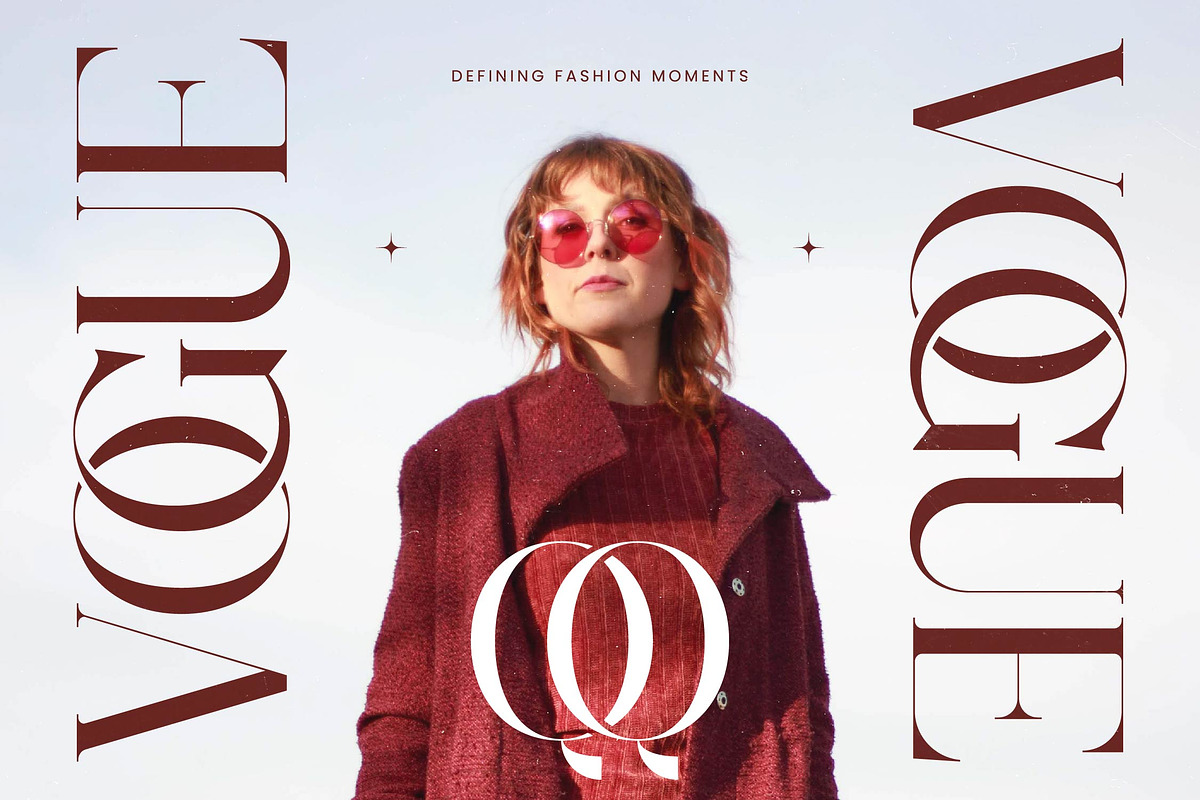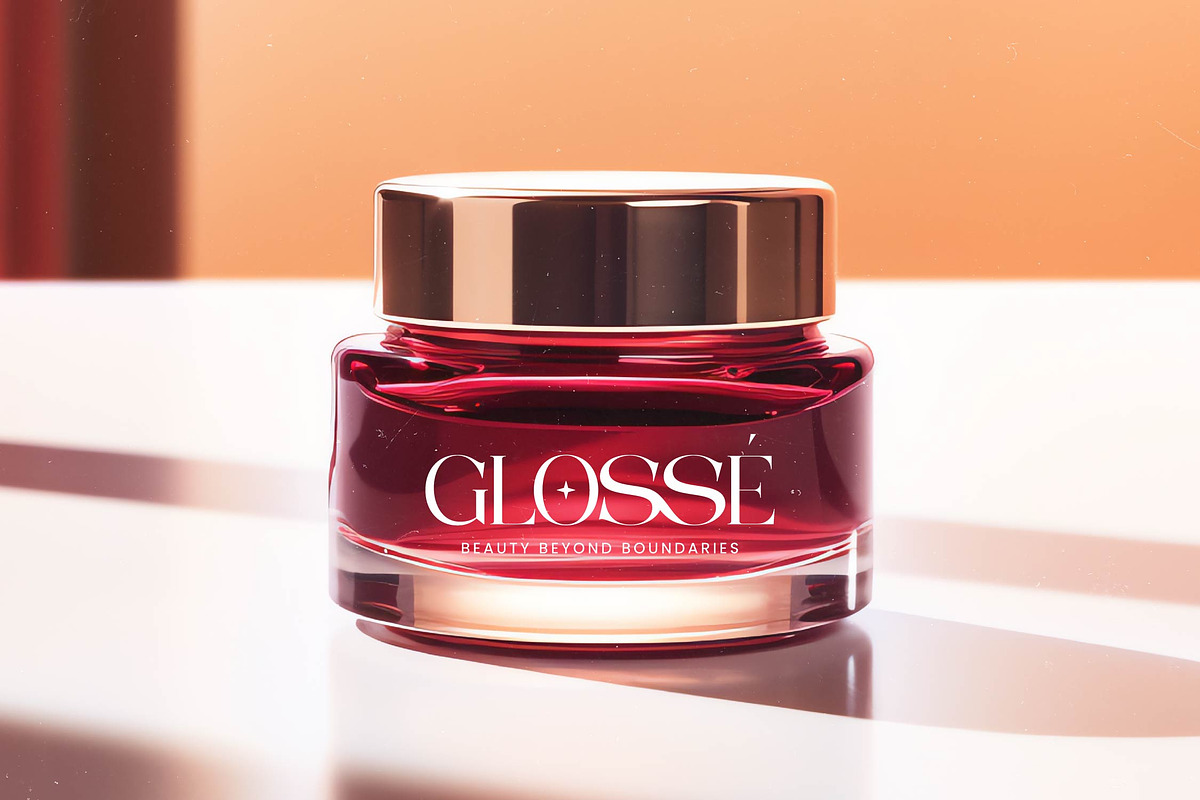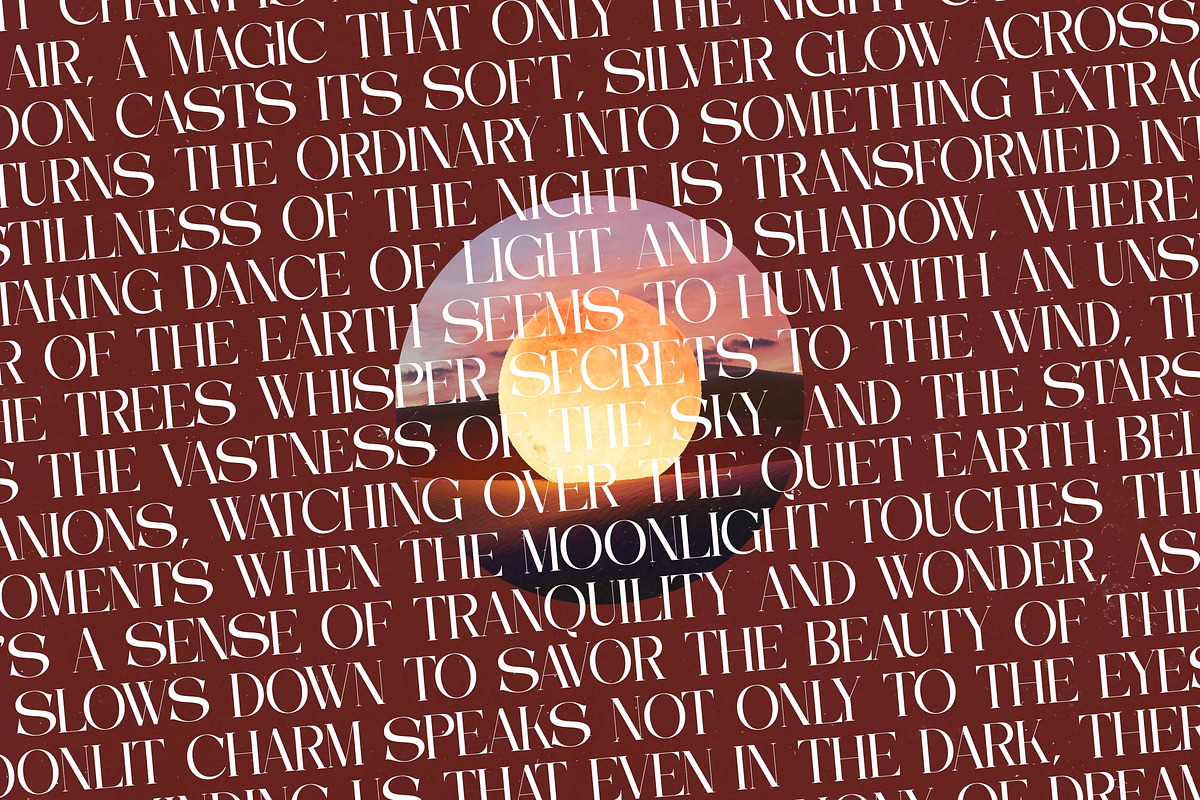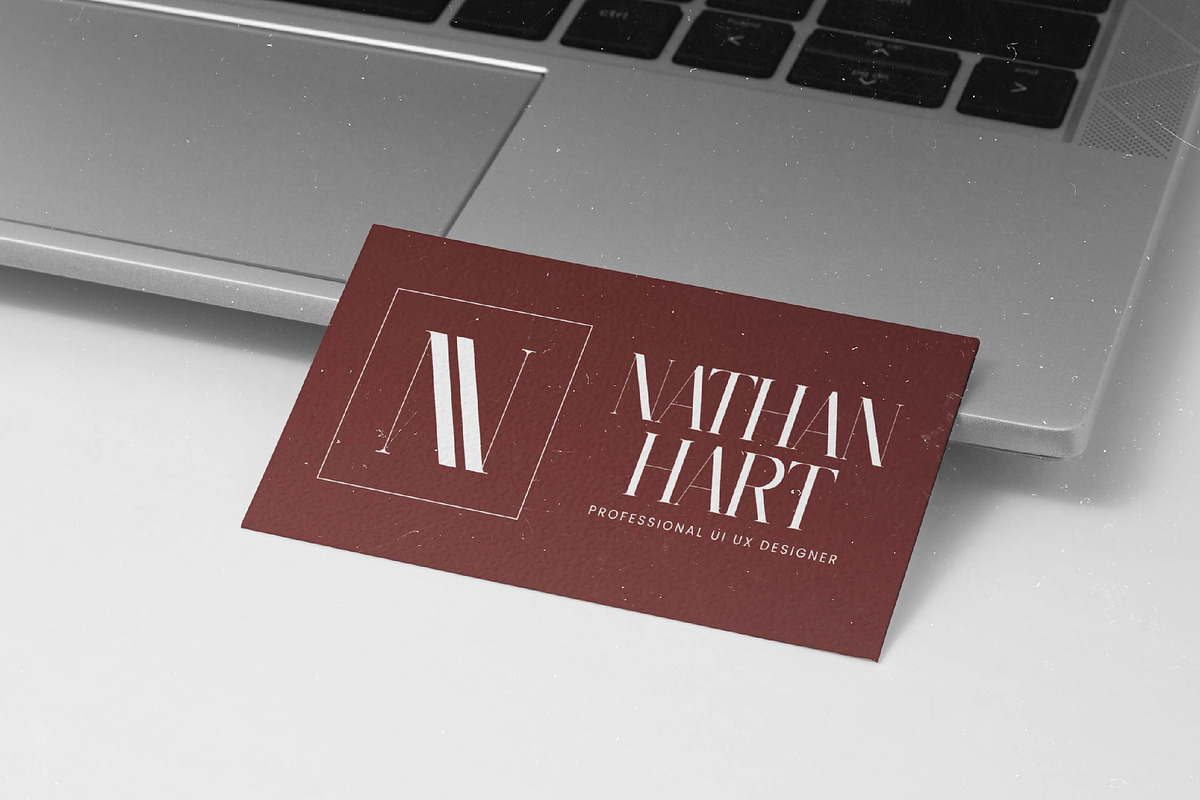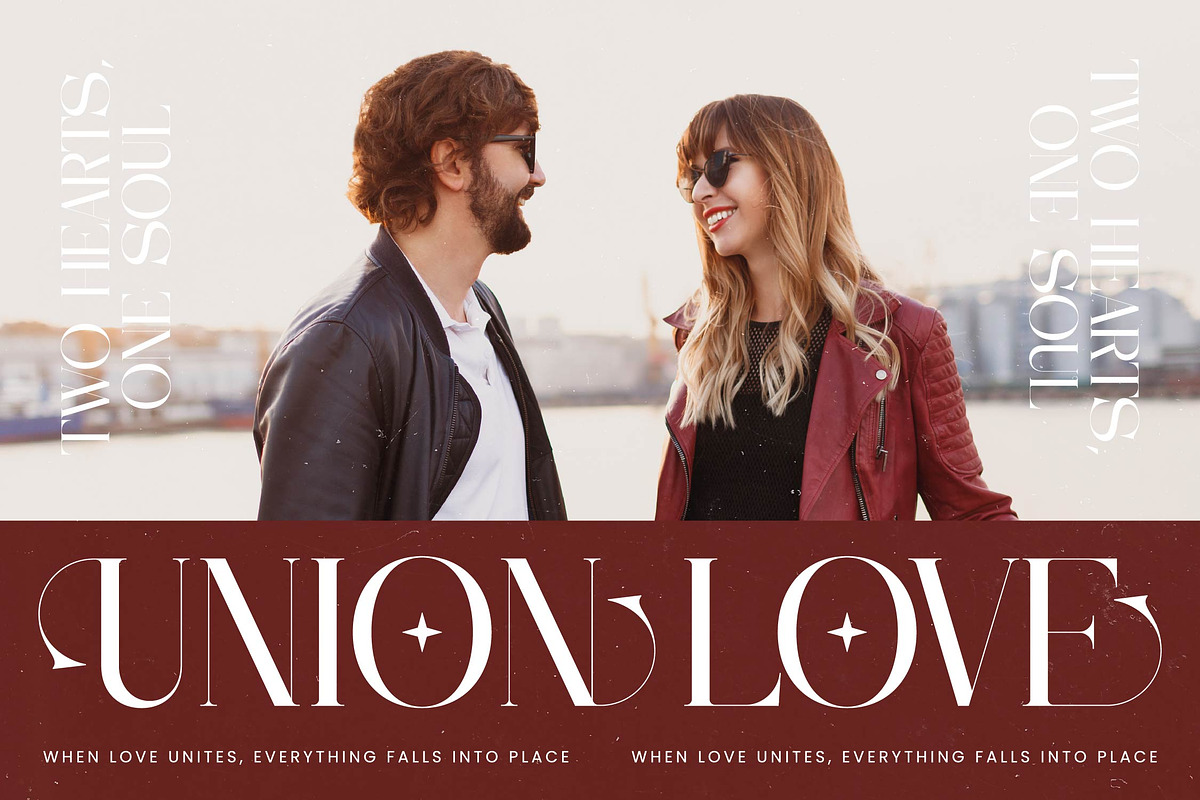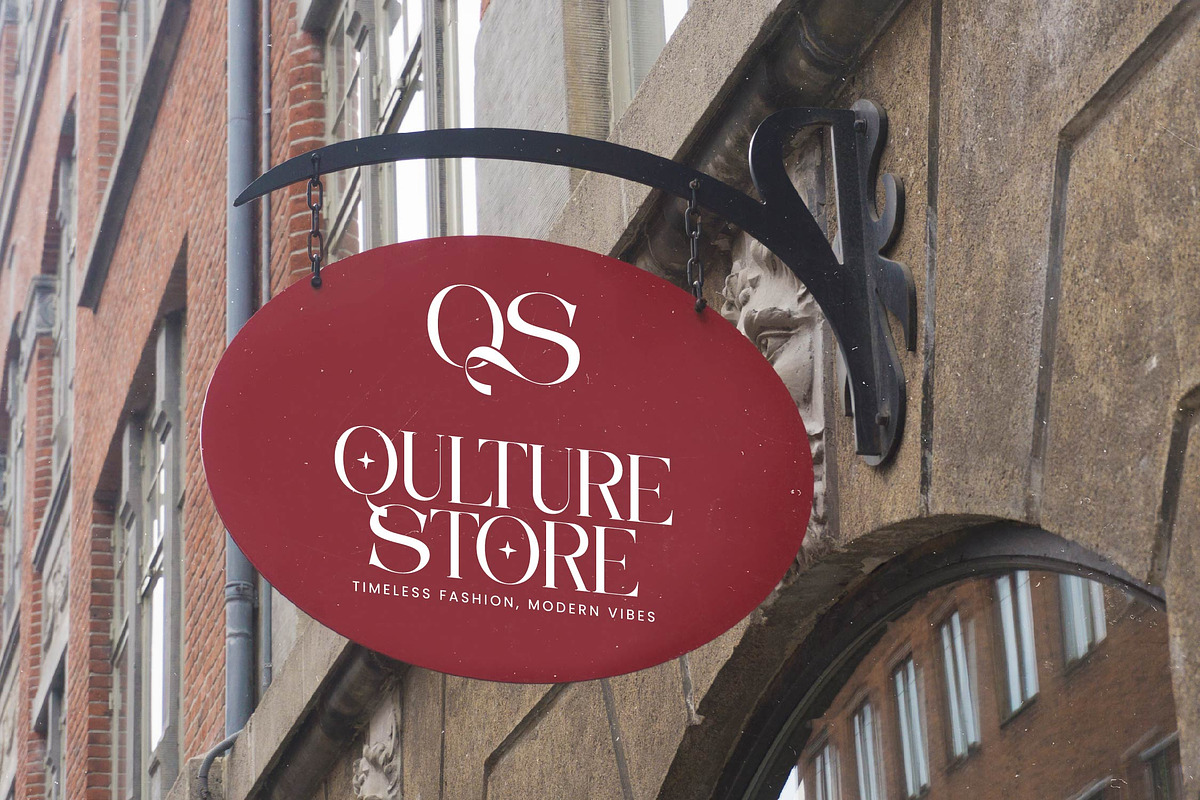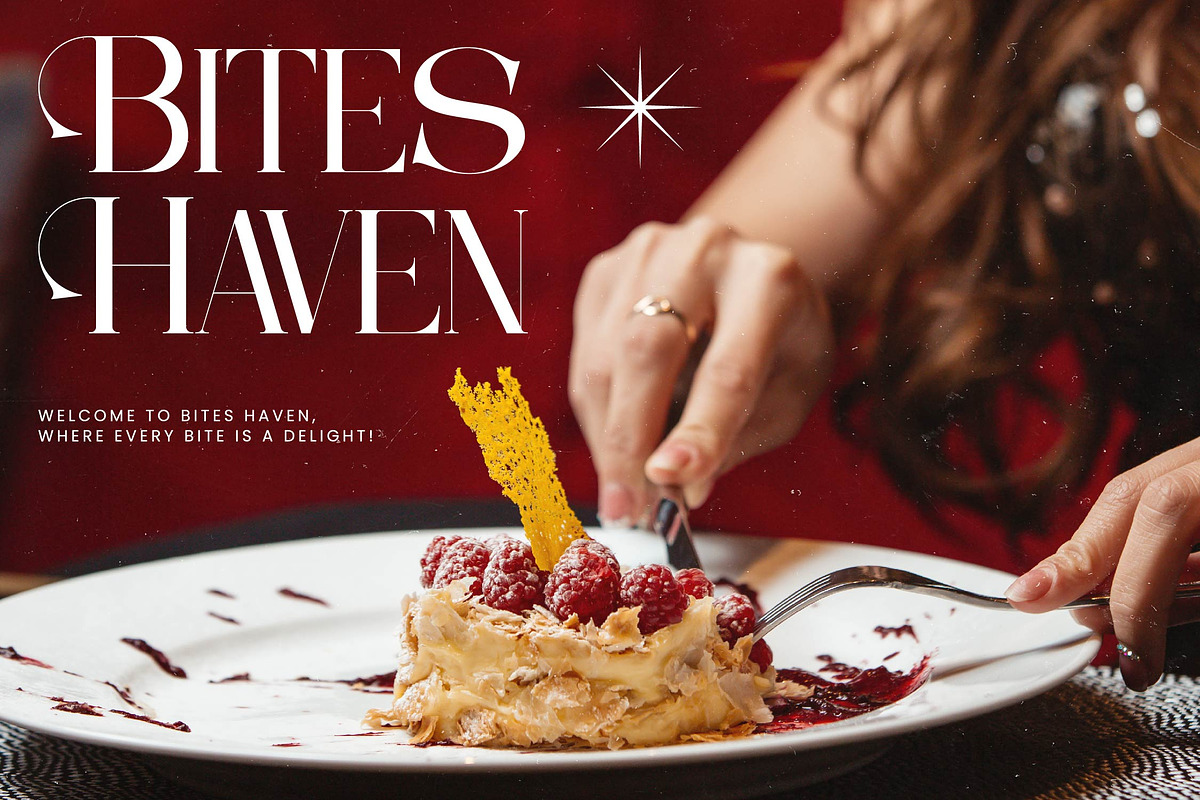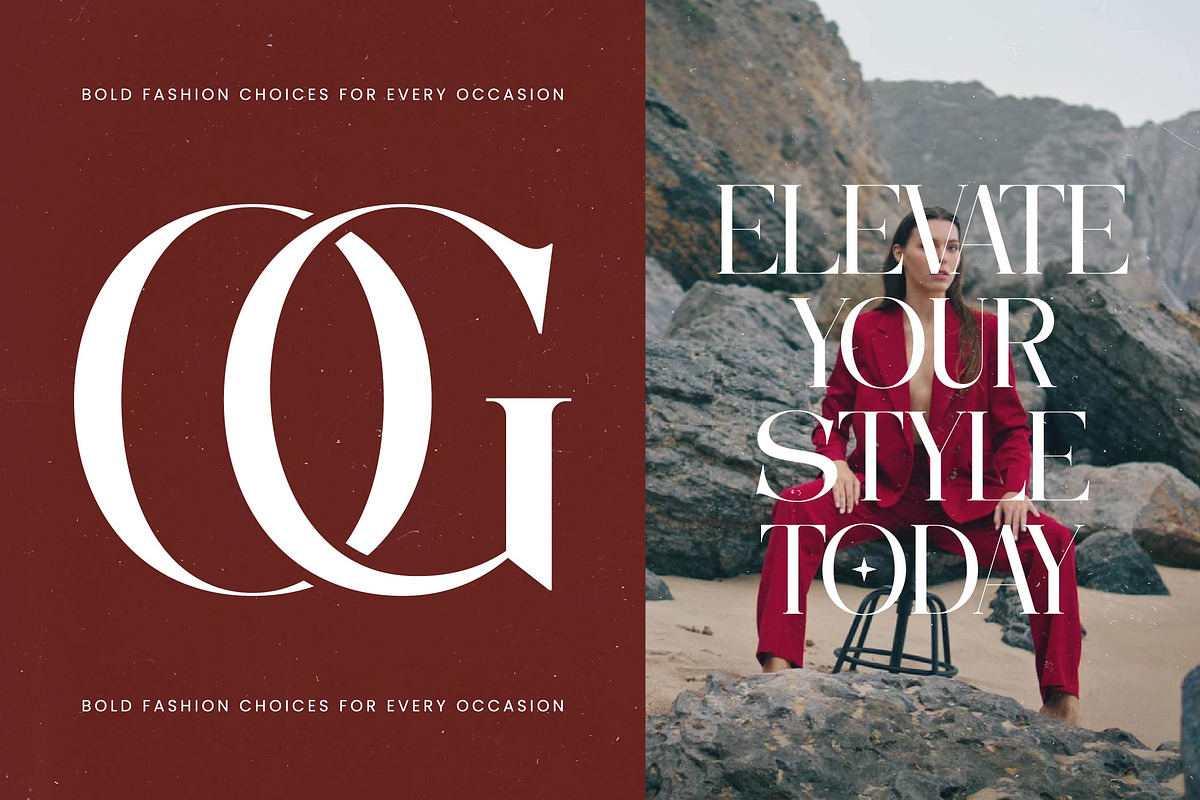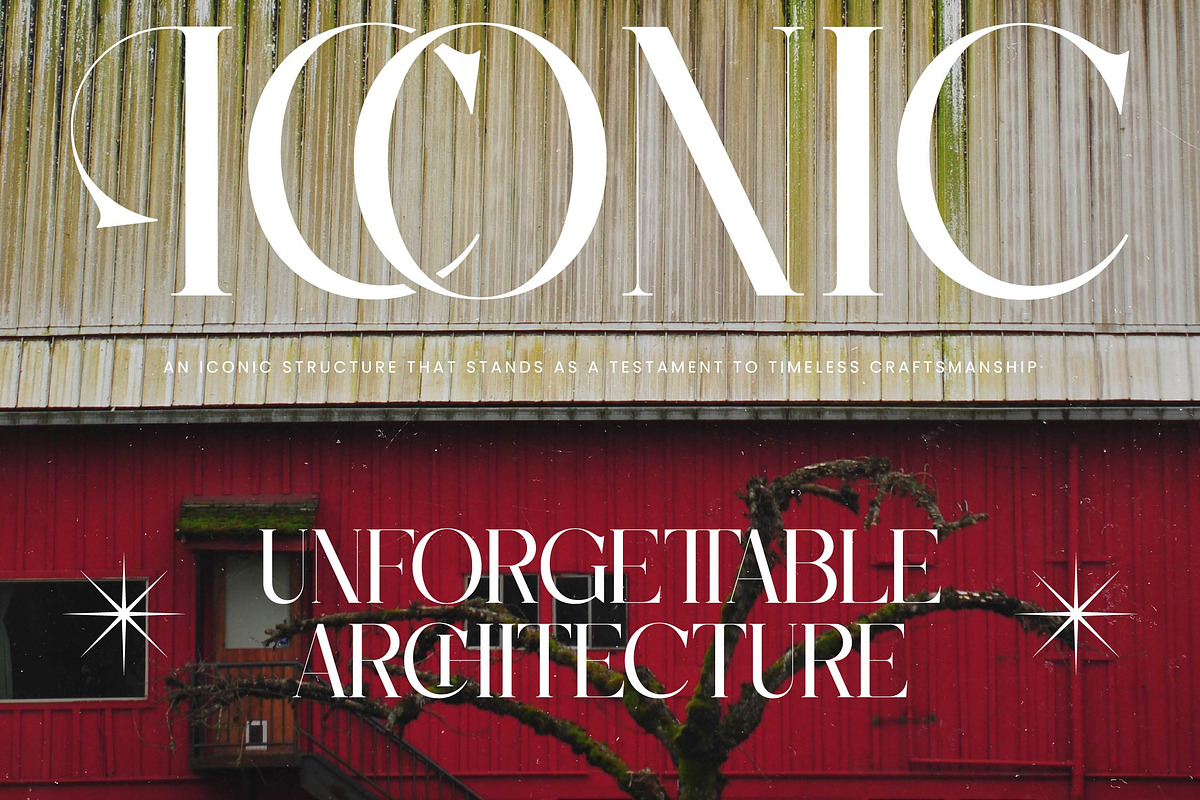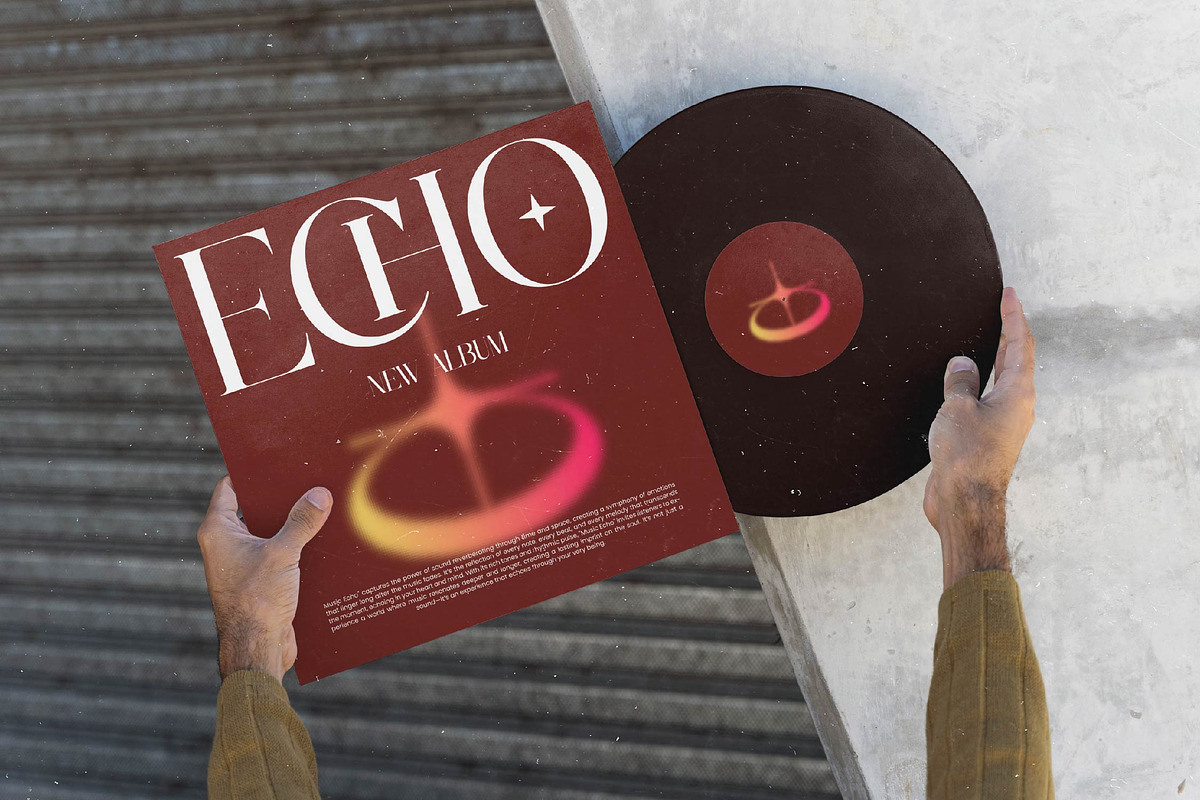
Moonlit Charm Modern Display Serif
Capture the essence of celestial elegance with Moonlit Charm All Caps, a typeface designed to illuminate your creative vision. It strikes a perfect balance between timeless grace and contemporary sophistication.
Inspired by the quiet beauty of a desert moonrise, this font reflects the sharp contrasts of shadow and light found in nocturnal landscapes. Its architectural lines and delicate curves evoke a sense of high-end mystery and ethereal beauty.
This modern serif display delivers immediate luxury typography through its high-contrast serif strokes and refined silhouettes. Every letter is crafted for maximum branding impact, making it an essential editorial font for projects that require a touch of class and distinction.
Staying ahead of the modern serif trend, this typeface embraces the shift towards character-driven typography that speaks louder than words. It aligns perfectly with the current demand for editorial display fonts that offer both versatility and a unique visual signature.
This versatile typeface is the ultimate choice for logo design, high-end branding, and sophisticated editorial layouts. Whether used for luxury packaging, romantic wedding stationery, or avant-garde fashion magazines, it brings a polished and professional finish to every page.
Unlock endless creative possibilities with its extensive collection of 64 ligatures and 63 alternates that allow for custom-feel lettering. Complete with international characters and full multilingual support, this font ensures your message resonates across the globe without losing its swashes or stylistic flair.
- Ligature 64 Alternate 63